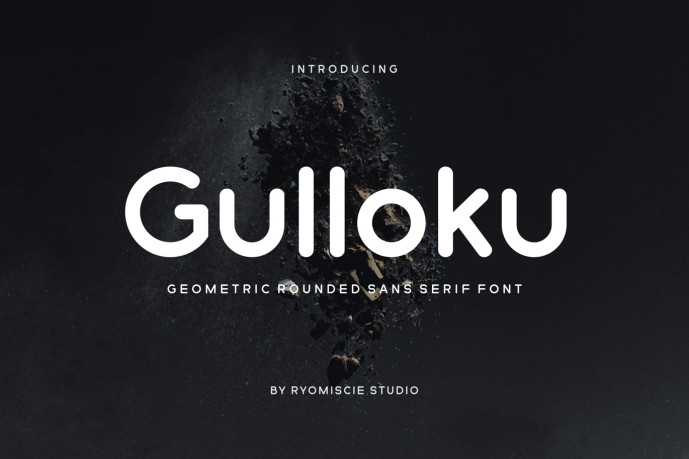
Gulloku – Geometric Rounded Sans Serif Font
Designer: ryomiscie
Gulloku – Geometric Rounded Sans Serif Font
Gulloku – Geometric Rounded Sans Serif Font is a bold and authentic display font. The font is suitable for any branding project like logo, esport, and many more. outstanding in a wide range of contexts.